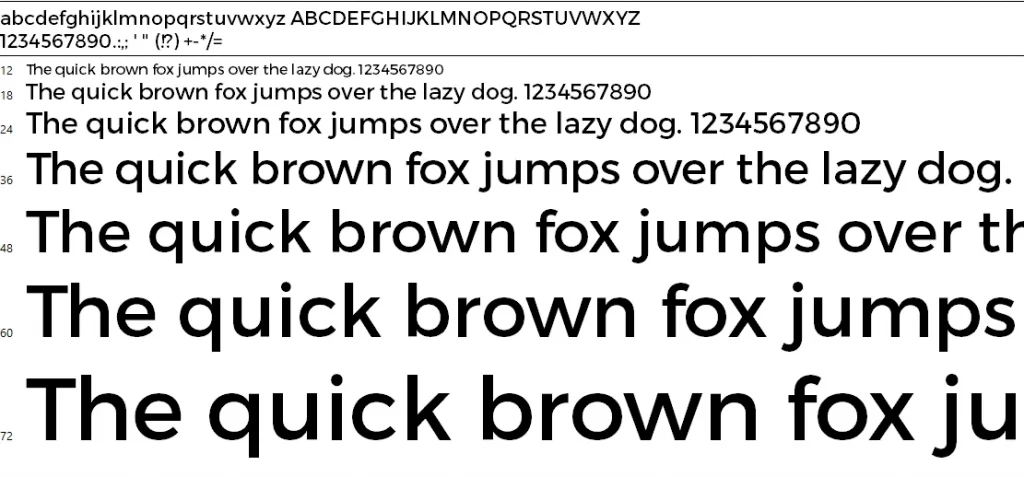
Hello designers, we’re sharing the fantastic Trueno Sans Font family with you today. It is a sans-serif font, a variation of the Montserrat Font created by entry-level designer Jasper. Designers have also added two new weights to the mix and all of the weights and widths are suitable for different screen sizes. If you’re going to design a logo, you’ll need to figure out what type of structure you want to use.
If you think right and want to use a bold typeface that looks like a mermaid font in your projects, this is the font for you. Trueno Sans Regular, Trueno Sans ExtraLight, Trueno Sans Book, Trueno Sans Medium, and Trueno Sans SemiBold are among the fonts of the Trueno Sans font family. It is one of the most popular fonts on the internet. You can utilize the Trueno Sans website on your own website to improve the aesthetics of your design. You can also use Trueno Sans for your logo and other graphic design tasks.
The font was created with typography and content writing in mind, but it may also be used in projects like infographics, museum exhibitions, event and conference spaces, social media ads, banners and graphics, magazine and newspaper ads, trailers, and game interfaces.
Trueno Sans Font is a stylish and versatile modern sans-serif font. It is well-suited for use in a variety of applications, from headlines and logos to body text and websites. The font family includes multiple weights and supports multiple languages, making it a great choice for designers who need flexibility in their designs. You can also check out this font in our font generator for free! So check it out now.